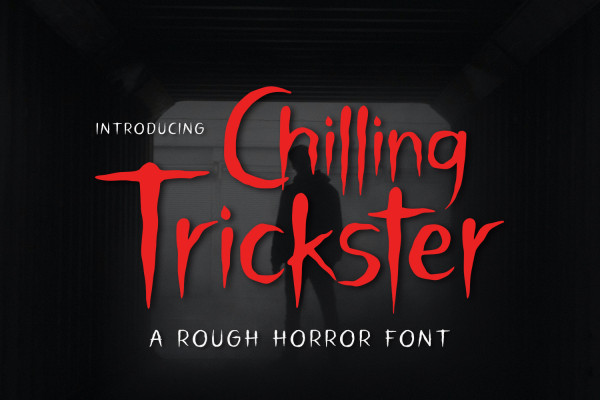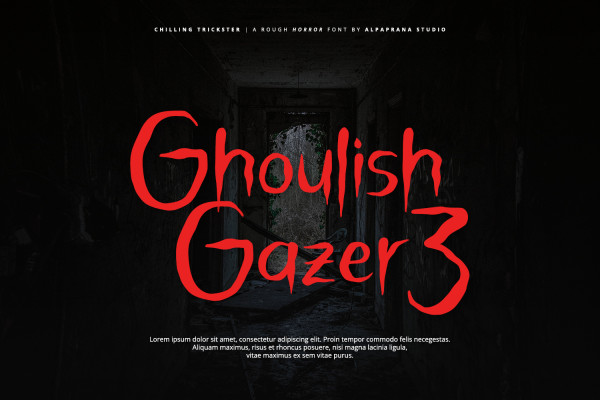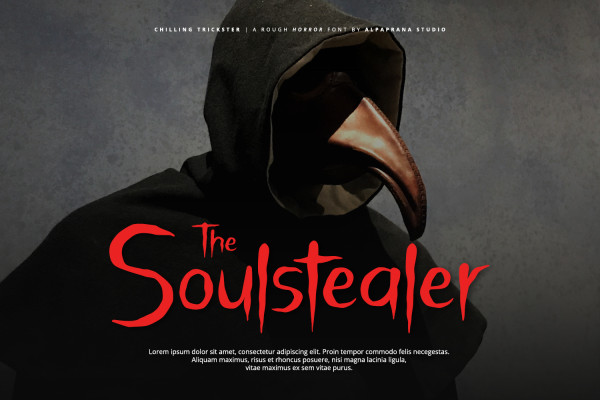
Chilling Trickster Font
Chilling Trickster Font is a violent, powerful and rough handwritten font with bold splatters. With the right design the Nightscary font has a scary look and feel which makes it a great Halloween or thriller themed font.
If you’ve been looking for a thriller font, this Chilling Trickster font is everything which you’ve been dreaming of and much more.
It doesn’t matter if you’re creating Game Horror, T-Shirts or crafts which are meant to be scary – this font will provide any project with extra spook, fright and feels.